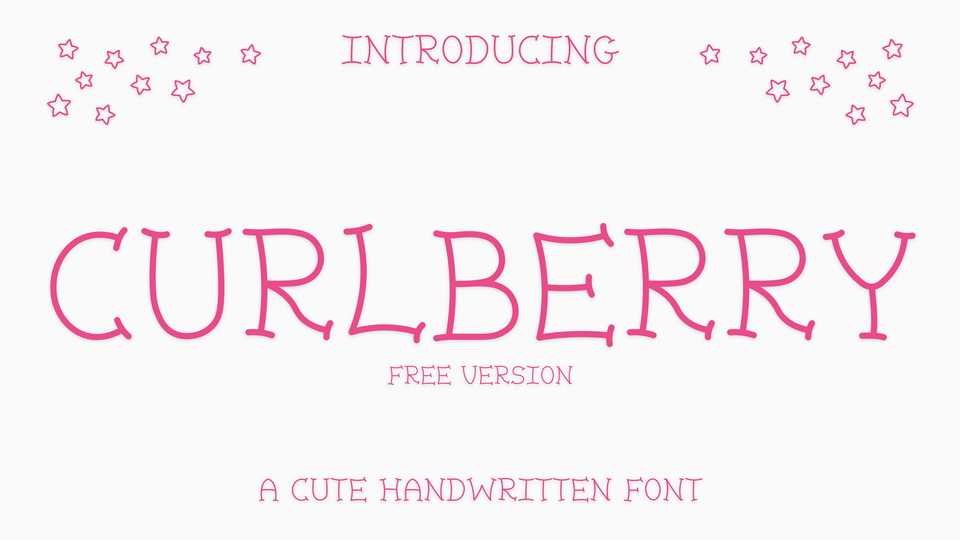
Download Curlberry font, a fun, whimsical typeface that makes you feel innocent and happy. Its rounded and curving curves give off a warm, welcoming appearance that makes it ideal for designs aimed at children.